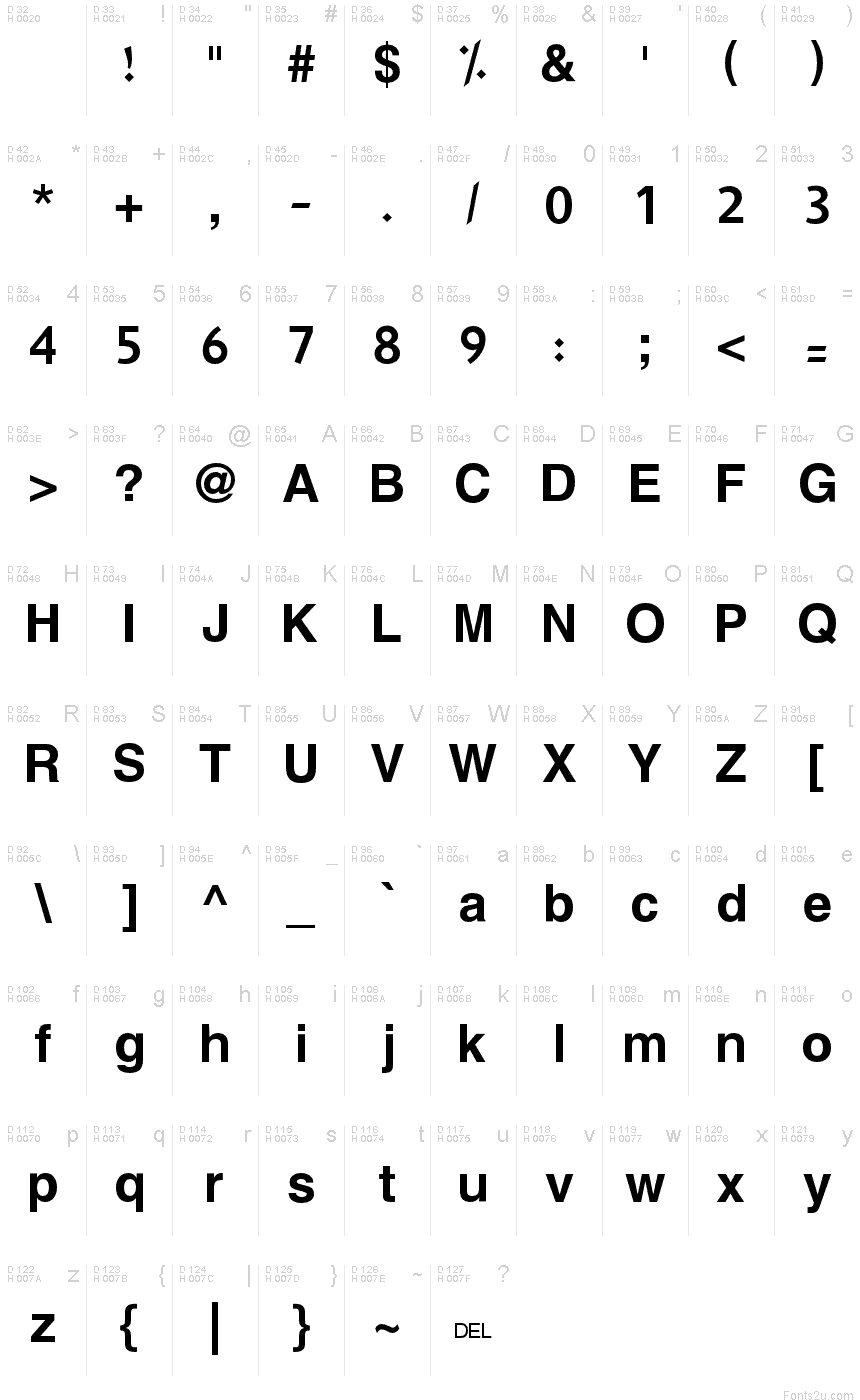
Hacen Liner Screen Bd
The family of HacenLiner is specially intended for producing high quality text in the printouts and on the screen. HacenLiner was precisely designed to offer harmonical appearance of Arabic word, professionally built to give proportionate and readable letters whether printed out or shown on the screen. A variety of styles are bundled to achieve great headings and layout.